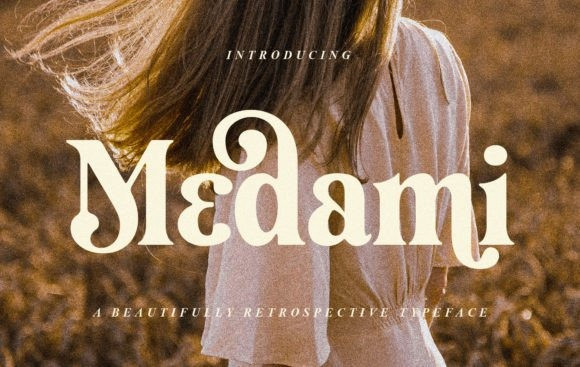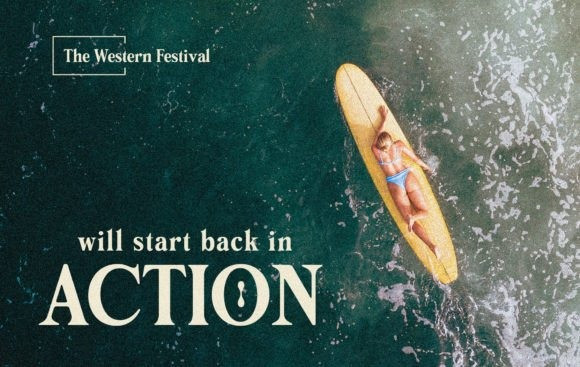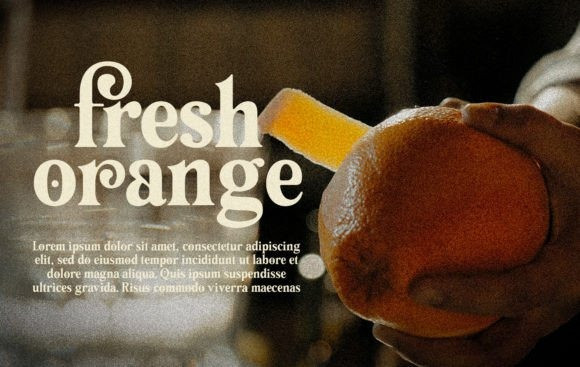
Medami Font
Medami is an exquisite and incredibly elegant serif font. Stylish and fashionable, this font has the potential to enhance any project you wish to create.